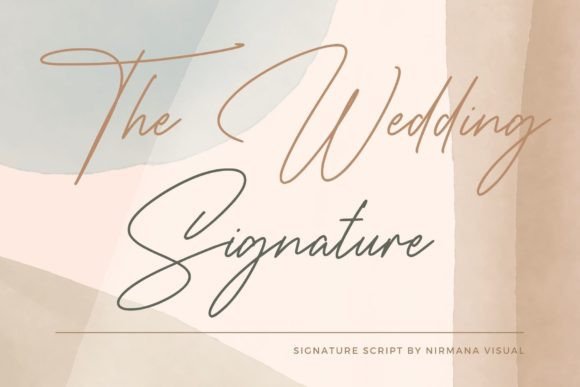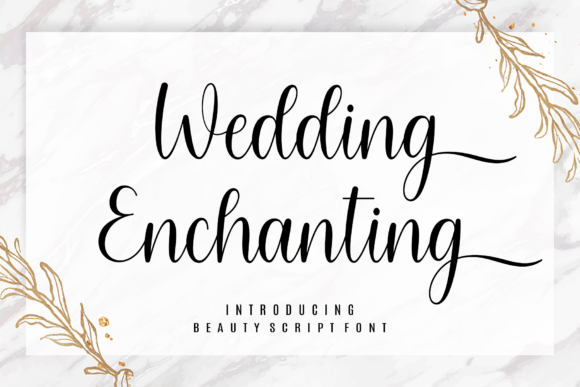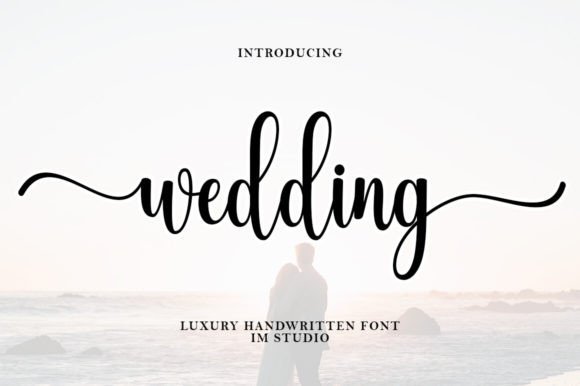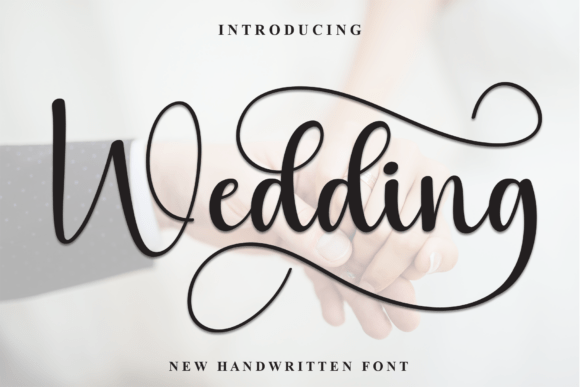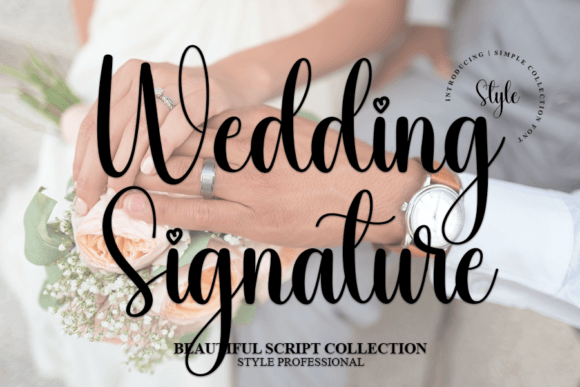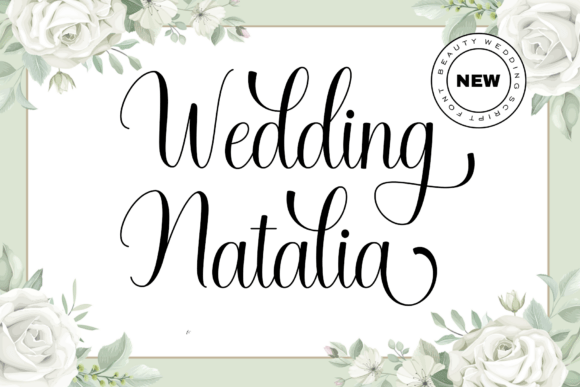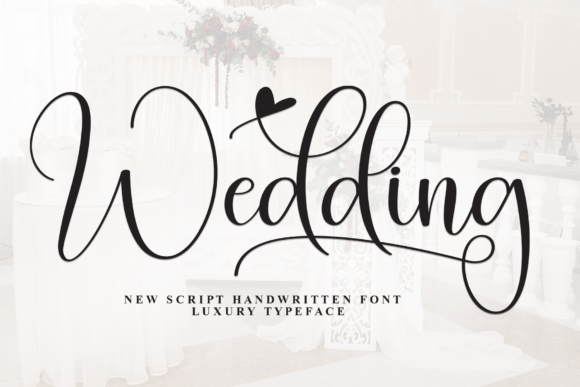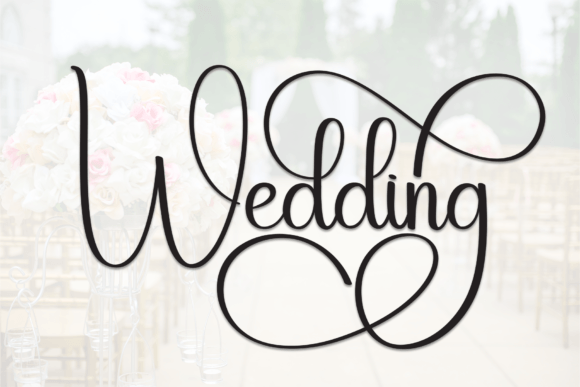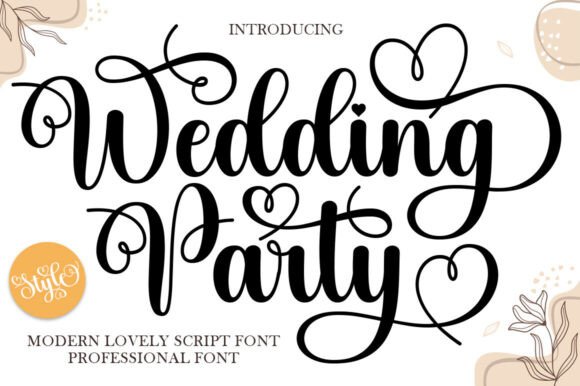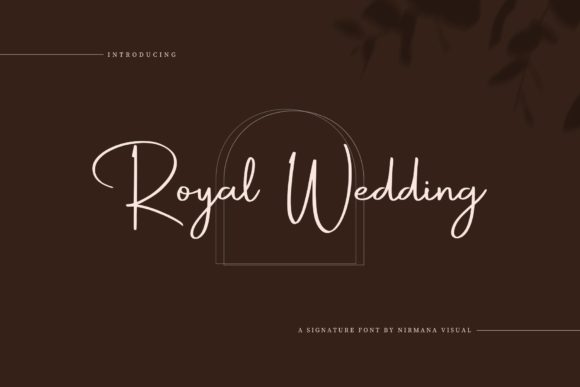
25 Best Wedding Fonts for Elegant Invitations & Monograms
The right wedding fonts can turn a plain invitation into something you want to frame. Whether you are styling save-the-dates, a welcome sign, a monogram or your whole wedding website, the lettering sets the mood before a single word is read.
Below you’ll find 25 of the best wedding fonts – romantic calligraphy, elegant scripts, decorative monograms and one soft sans-serif – grouped by style so you can jump straight to the look you’re after. First, a few quick tips to help you choose and pair them well.
How to Choose the Best Wedding Fonts
Start with legibility. A guest should be able to read the date and venue at a glance, so save the most ornate wedding fonts for names and titles, and keep the details in something cleaner.
Match the font to the formality of your day. Sweeping calligraphy suits a black-tie ballroom; relaxed handwriting fits a garden or rustic celebration; a tidy serif or sans feels modern and minimal.
- Pick a hero, not a crowd. One expressive script as the star, supported by one simple font, beats four fonts fighting for attention.
- Mind the swashes. Gorgeous flourishes need breathing room – give them space so letters don’t collide.
How to Pair Wedding Fonts Like a Pro
The easiest winning combination is script + simple: a romantic calligraphy font for the couple’s names, paired with a clean serif or sans for the practical details. The contrast makes both feel intentional.
Keep a clear hierarchy – names largest, then the date and venue, then the fine print. Stick to two fonts (three at most), and reuse that exact pairing across your invitations, signage and website so everything looks like one cohesive suite.
Elegant Wedding Script & Calligraphy Fonts
The Wedding Signature
A dazzling, highly detailed signature script with refined, confident strokes – polished enough to headline an entire invitation suite.
Best for: Invitation headers, logos, monograms.
Wedding Enchanting
A sophisticated script that balances delicate elegance with a timeless feel, made to flatter romantic wedding themes.
Best for: Invitations, save-the-dates, quotes.
Wedding – Classic Calligraphy
A stylish, elegant handwritten face that looks stunning across invitations, thank-you cards and greeting cards. PUA-encoded for easy access to swashes.
Best for: Invitations, thank-you cards, branding.
Wedding – Modern Script
A flowing modern script with graceful strokes and fluid curves – hand-drawn calligraphy reimagined with a contemporary twist.
Best for: Logos, monograms, modern invitations.
Wedding Signature
A cool, modern handwritten font relaxed enough to be your everyday go-to for crafts and cards.
Best for: Crafts, greeting cards, presentations.
Wedding Natalia
A suave, sophisticated script radiating timeless elegance and a soft, captivating allure.
Best for: Invitation suites, branding, signage.
Wedding – Flowing Calligraphy
A flowing handwritten font that marries grace with expressive, artful letterforms rooted in classic calligraphy.
Best for: Timeless invitations, vows, quotes.
Wedding – Neat Script
A neat, balanced script with flowing lines that brings instant elegance to invitations and branding.
Best for: Invitations, logos, branding.
Wedding Party
A contemporary calligraphy script with soft lines, tantalizing curves and playful heart-inspired swashes.
Best for: Romantic invitations, signage, save-the-dates.
Royal Wedding
A regal script that lends a confident, premium feel to logos and creative products.
Best for: Logos, apparel, premium branding.
Wedding Dream
A charming, elegant script that shines on invitations, thank-you cards and greeting cards. PUA-encoded.
Best for: Invitations, cards, quotes.
Elegant Wedding
A delicate, fashionable script with full glyph and swash access for branding and creative products.
Best for: Logos, branding, apparel.
Wedding – Timeless Calligraphy
A graceful handwritten font with artful, calligraphic letterforms for timeless, sophisticated projects.
Best for: Invitations, vows, editorial.
Wedding Day
A captivating script with delicate letterforms that quietly embody timeless devotion.
Best for: Invitations, save-the-dates, tender quotes.
August Wedding